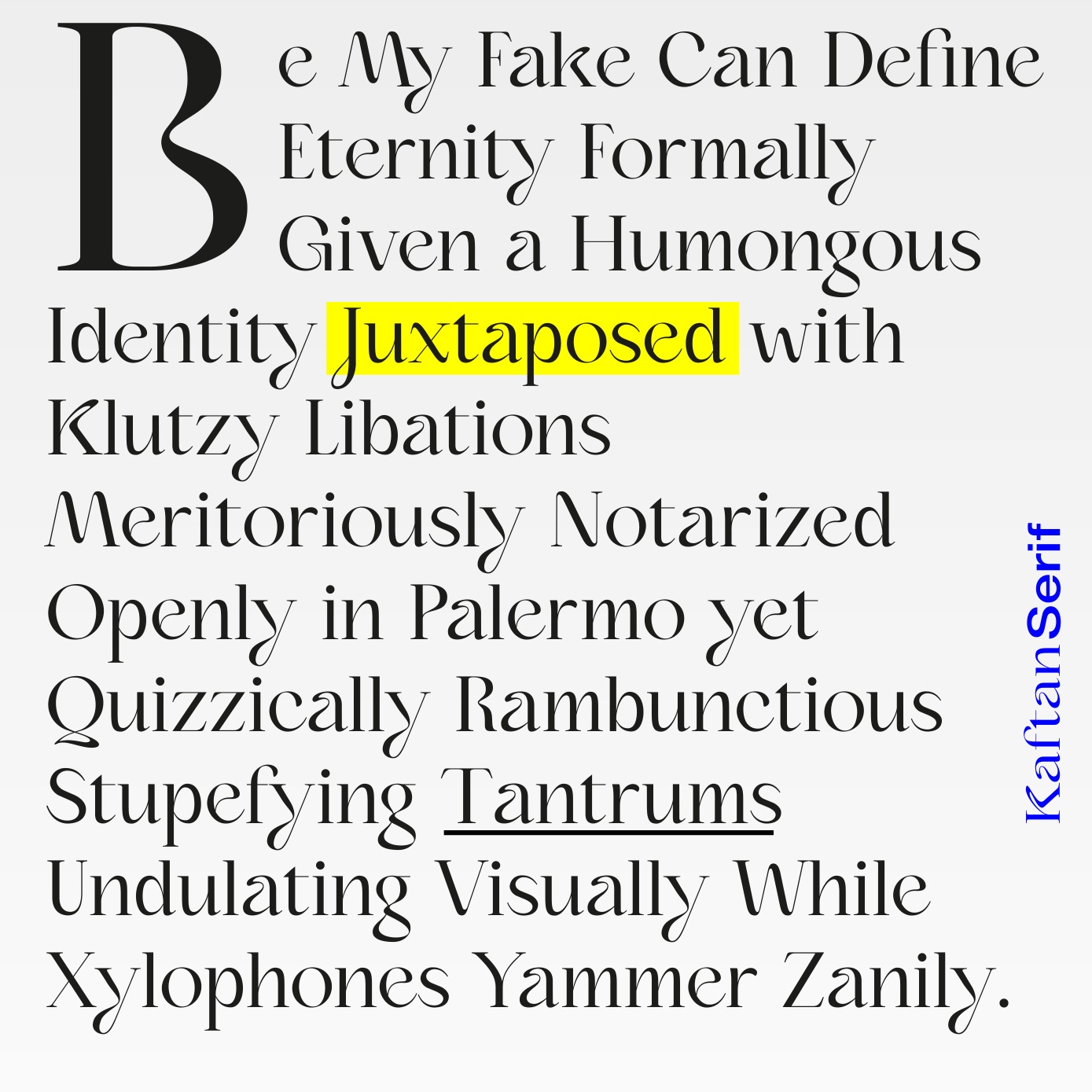
kaftan Serif Font is an elegant & modern serif typeface that looks incredible in both large and small settings as a display with italic version. Suitable for any branding purpose. This font is suitable for use in many forms of design, such as magazines, postcards, logos, vintage looks, old classics, 60s, 70s, 80s, wedding projects and more.